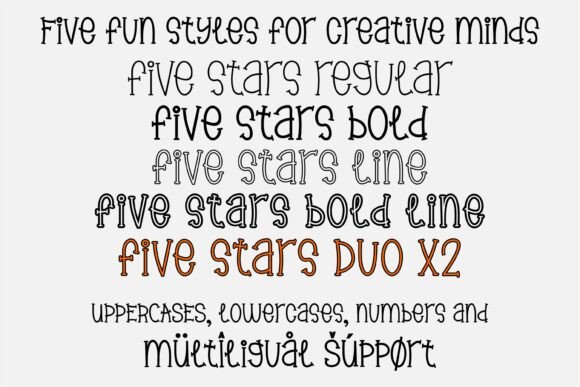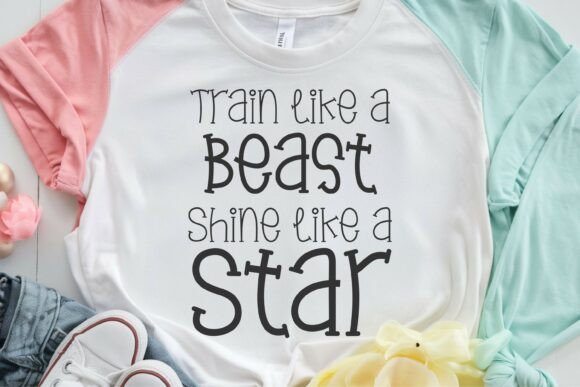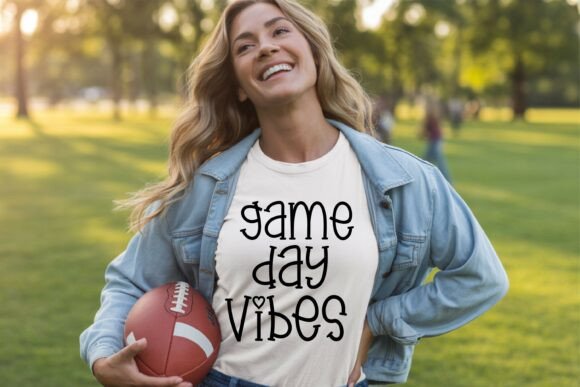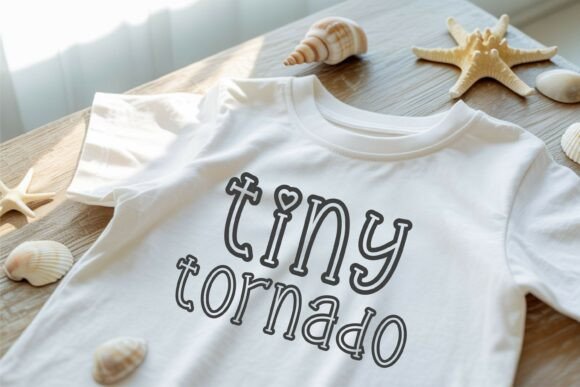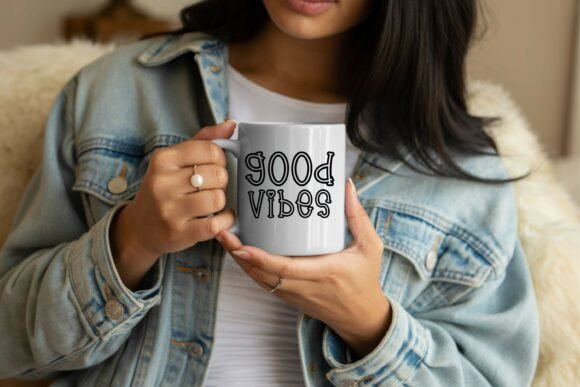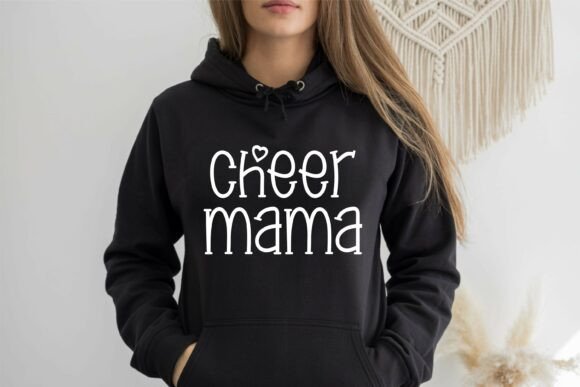
Introduction to Five Stars Duo Font Font
Fonts play a crucial role in design, and the Five Stars Duo Font font is a typeface that brings both character and versatility to any project. Whether you’re working on a branding project, a website, or a print design, the Five Stars Duo Font font offers a unique style that can elevate your work.
Five Stars is a collection of delightful handwritten fonts armed with five distinctive styles: Regular, Bold, Line, Bold Line, and Duo X2.
These whimsical creations are designed to make a bold statement in any artistic venture, compatible with an array of mediums such as Procreate lettering, Cricut crafting, printable quotes, a range of sportswear, classroom dΓ©cor, coffee mugs, and many more unique projects Tailored with a blend of amusement and creativity, Five Stars font infuses every word with a lively energy.
Key Features of Five Stars Duo Font Font
Why Choose Five Stars Duo Font Font?
The Five Stars Duo Font font is more than just a typeface β it’s a design tool that helps you communicate your message with style and clarity. Its unique character set and versatile design make it suitable for a wide range of applications, from elegant invitations to bold headlines.
With its carefully crafted letterforms and balanced proportions, the Five Stars Duo Font font ensures readability and visual appeal across all mediums.
What makes Five Stars Duo Font font special?
The Five Stars Duo Font font stands out with its unique design, exceptional readability, and versatility across various design applications.